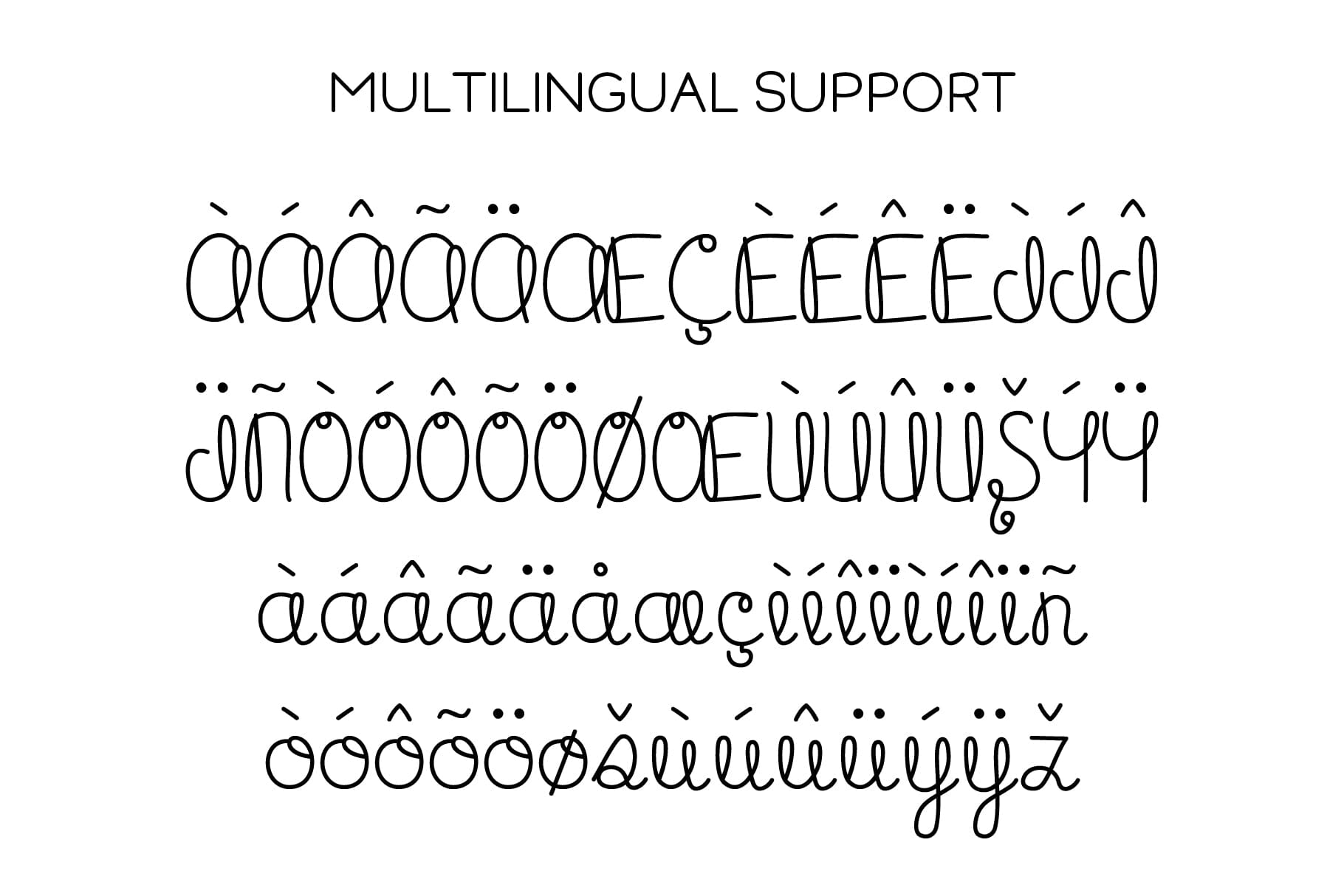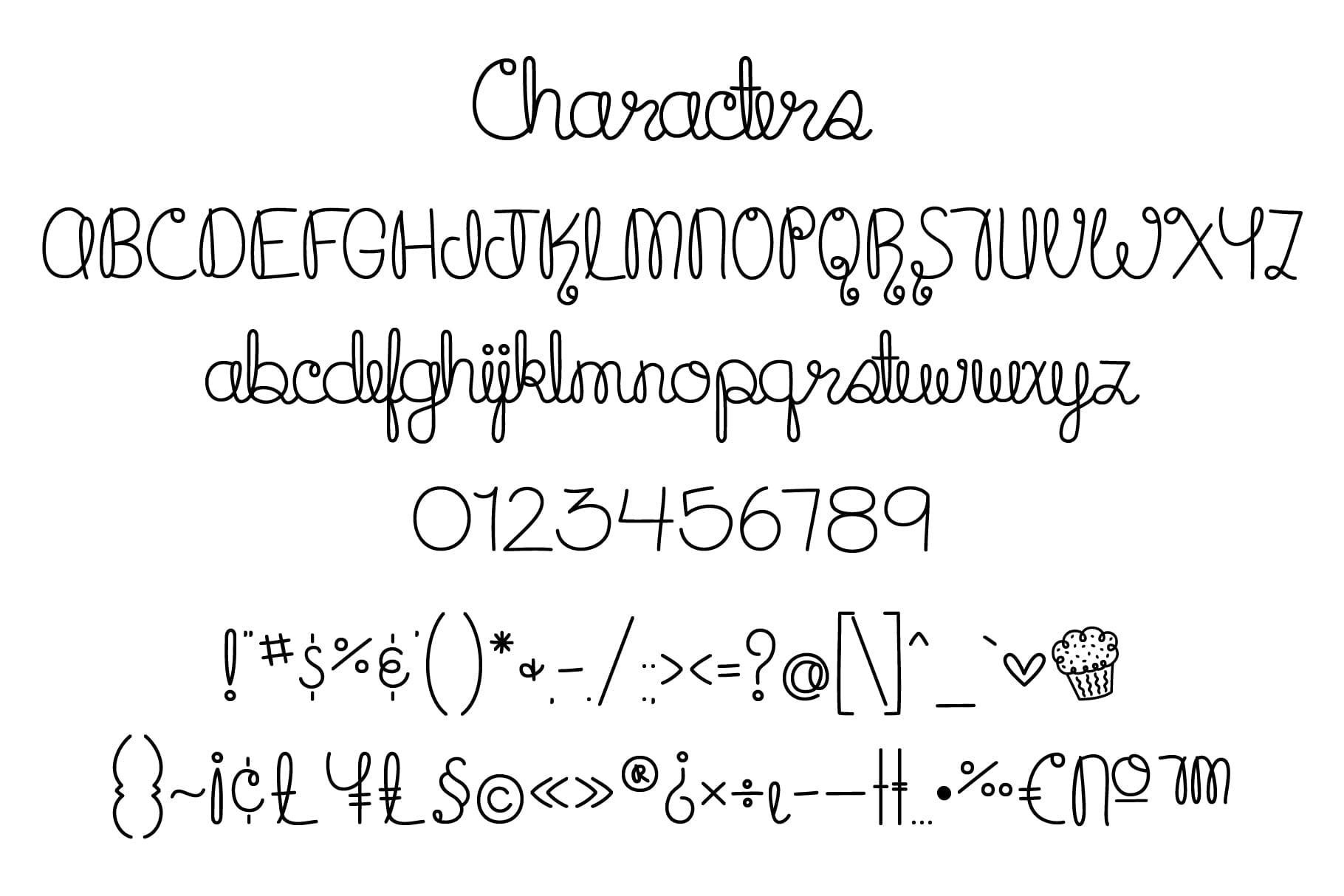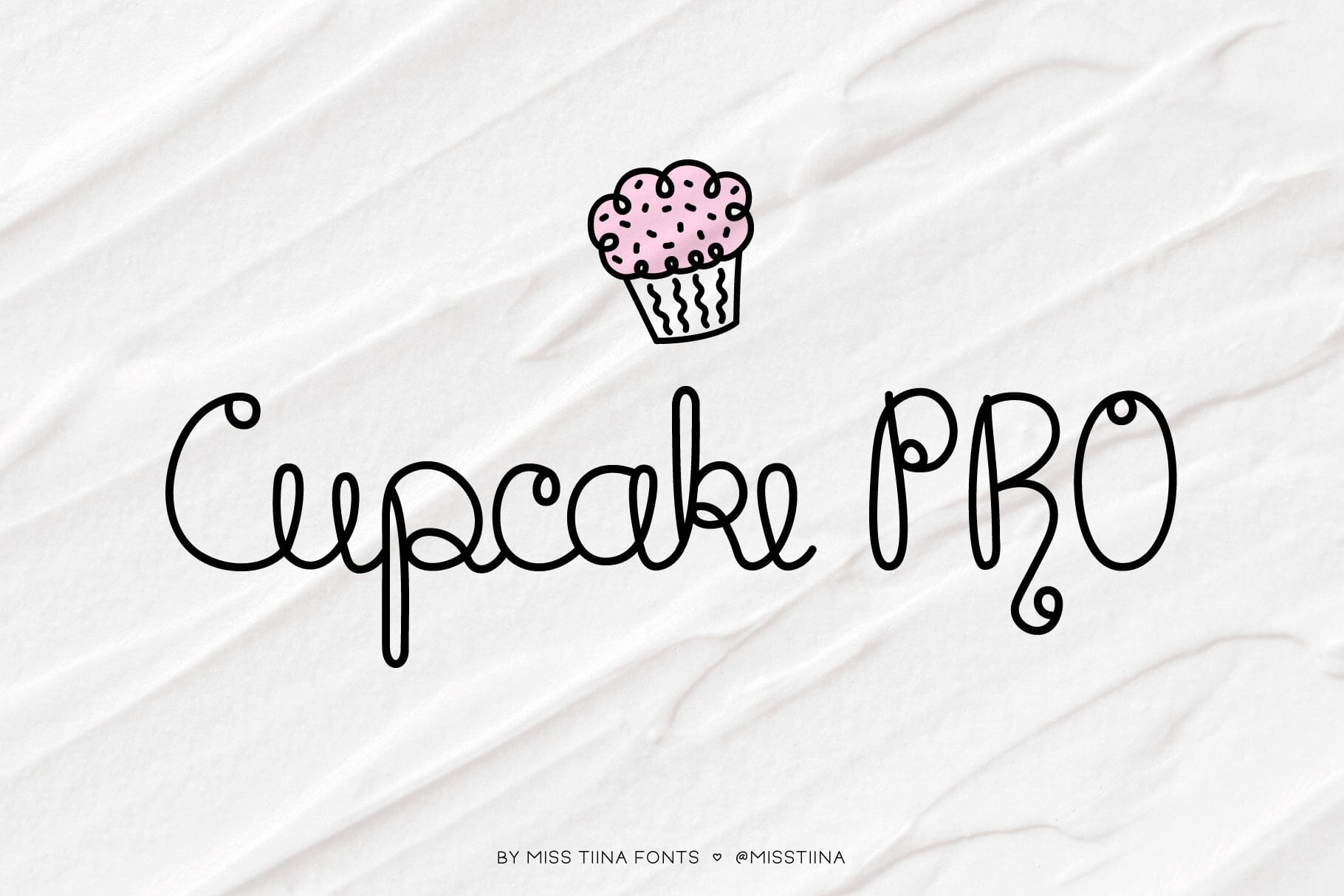
MTF Cupcake PRO
About MTF Cupcake PRO
Cupcake PRO is that type of font that looks great in just about any situation, except the “too-formal” ones. Let this fun handwritten font add friendliness and charm to your restaurant’s menu, kitchen, cookbook, or anything else that’s not food-related.